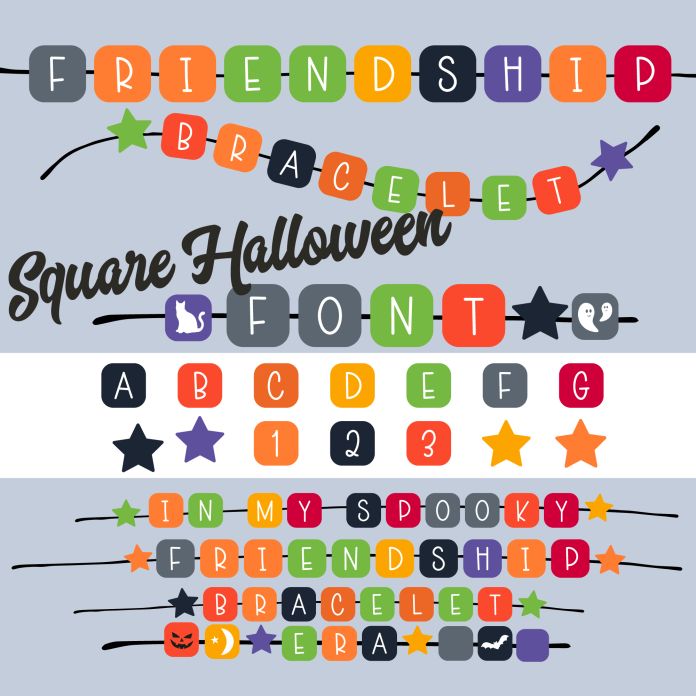
Halloween Square Friendship Bracelet Era Font - color Square Shaped beads for letters also includes plain color beads to mix up patterns, numbers, icons and straight and wavy threads to create your own friendship bracelet words, titles and quotes.